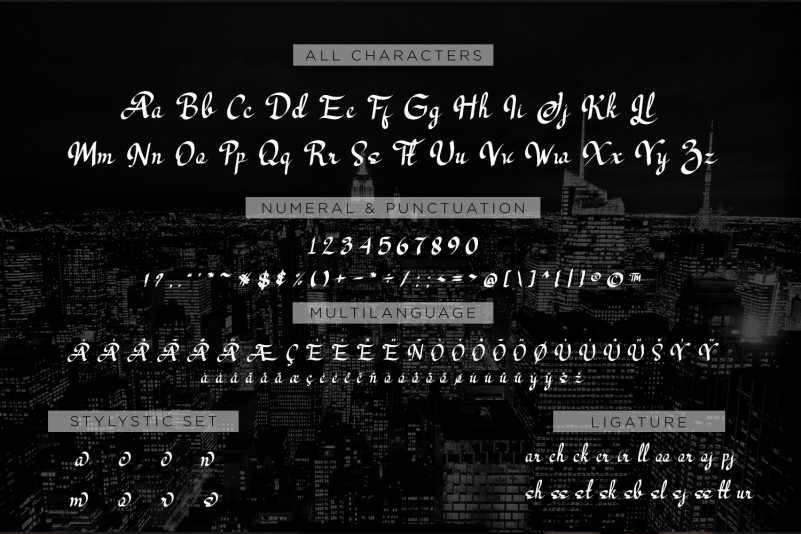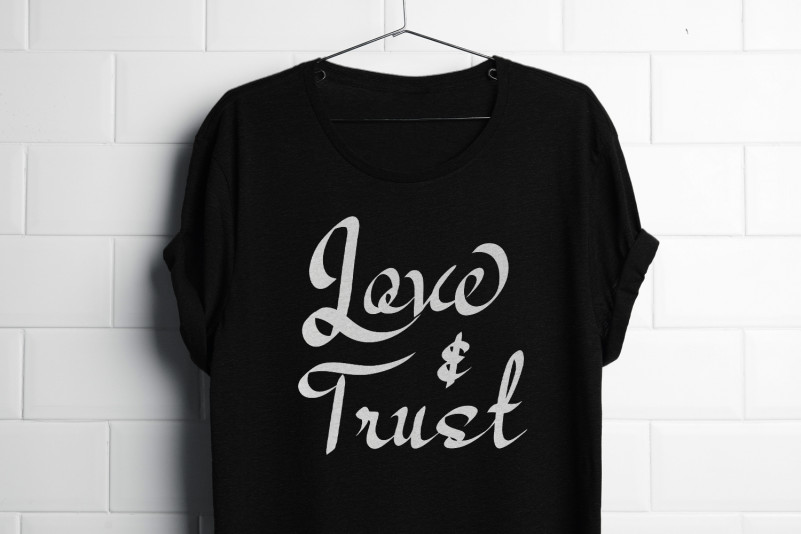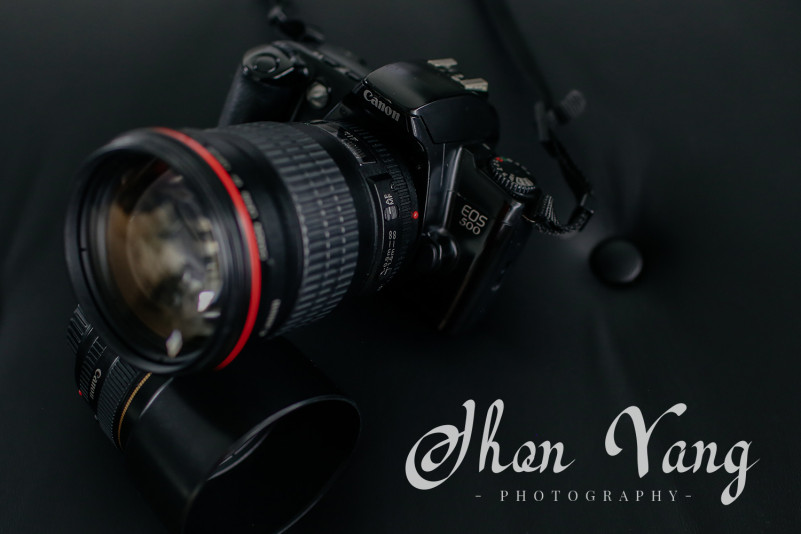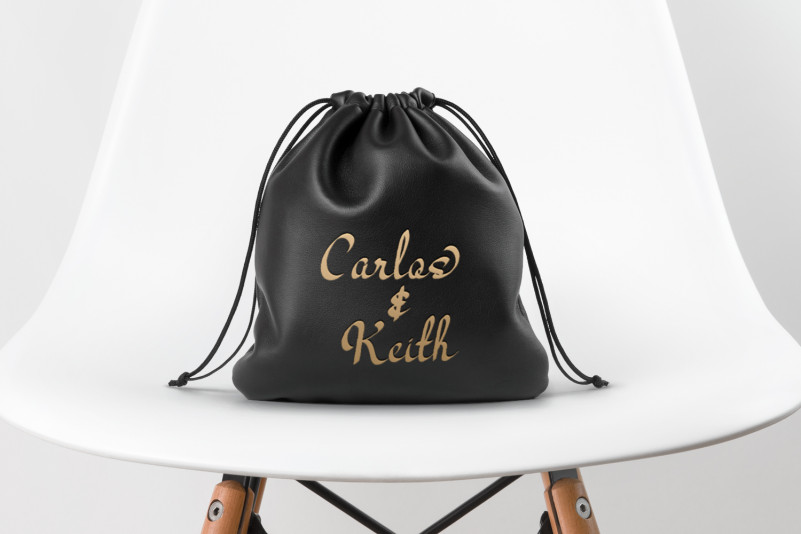
Los Angeles – Modern Script Font
Los Angeles – Modern Script Font is stylish handwritten font will be suitable for any projects such as logo’s, branding projects, homeware designs, product packaging, mugs, quotes, posters, shopping bags, t-shirts, book covers, name card, invitation cards, greeting cards, label, photography, watermark, special events, and all your other lovely projects that need handwriting taste.